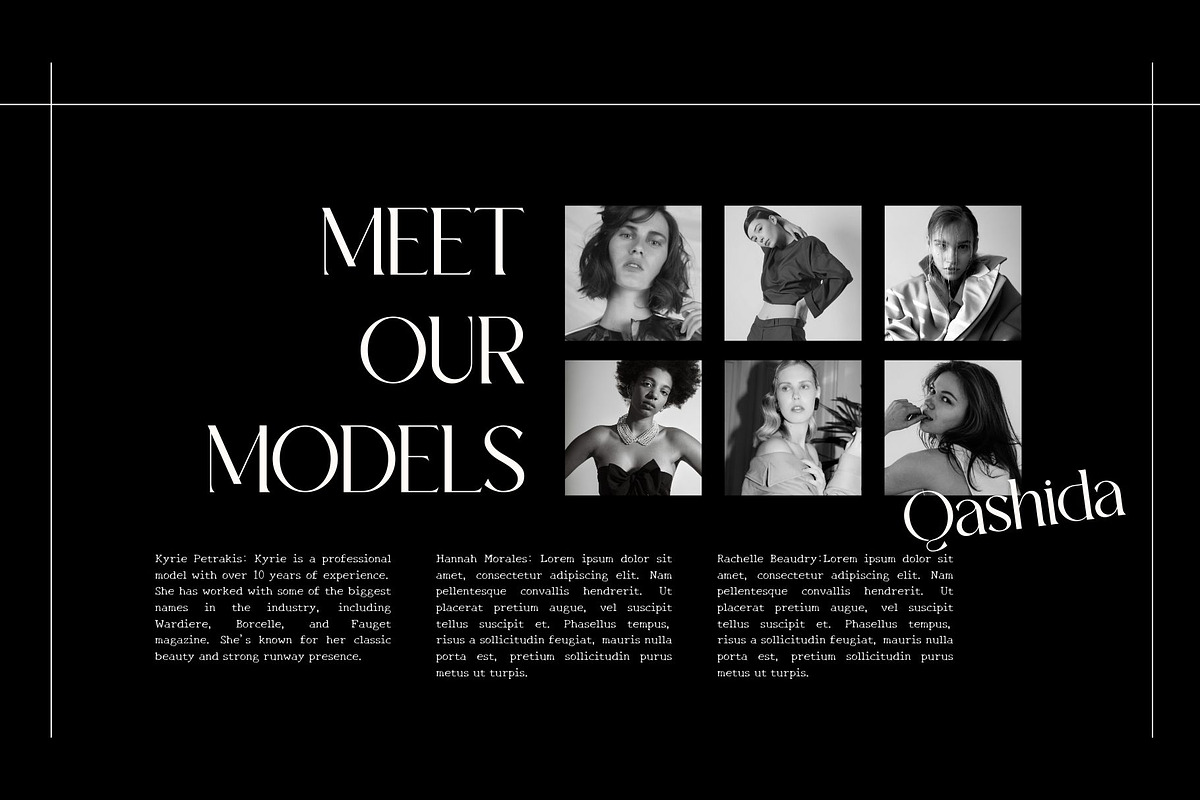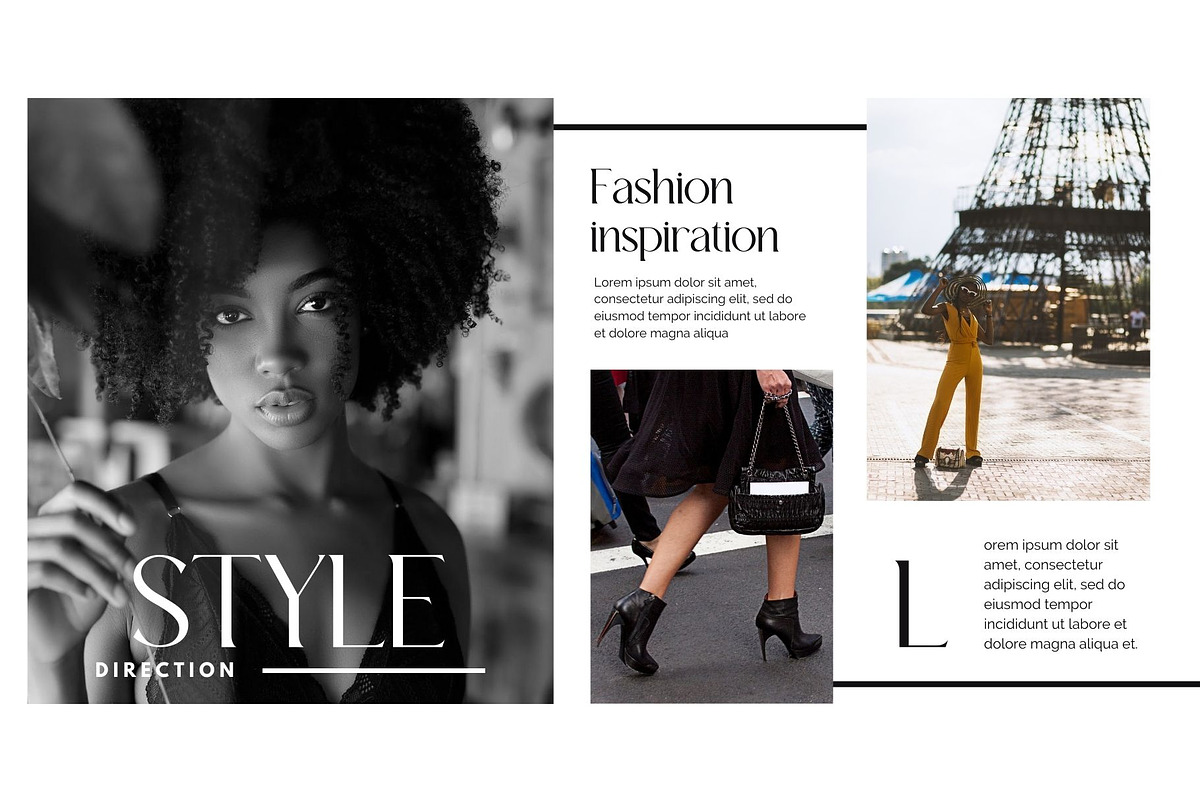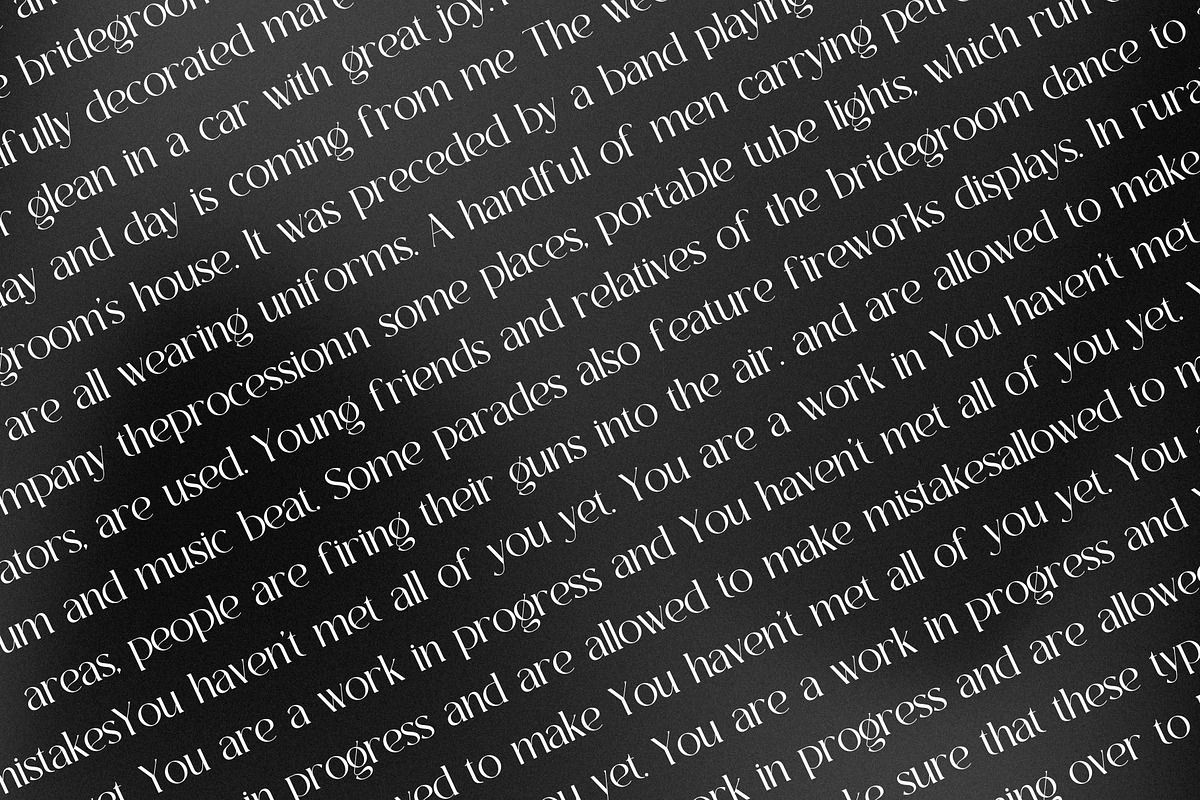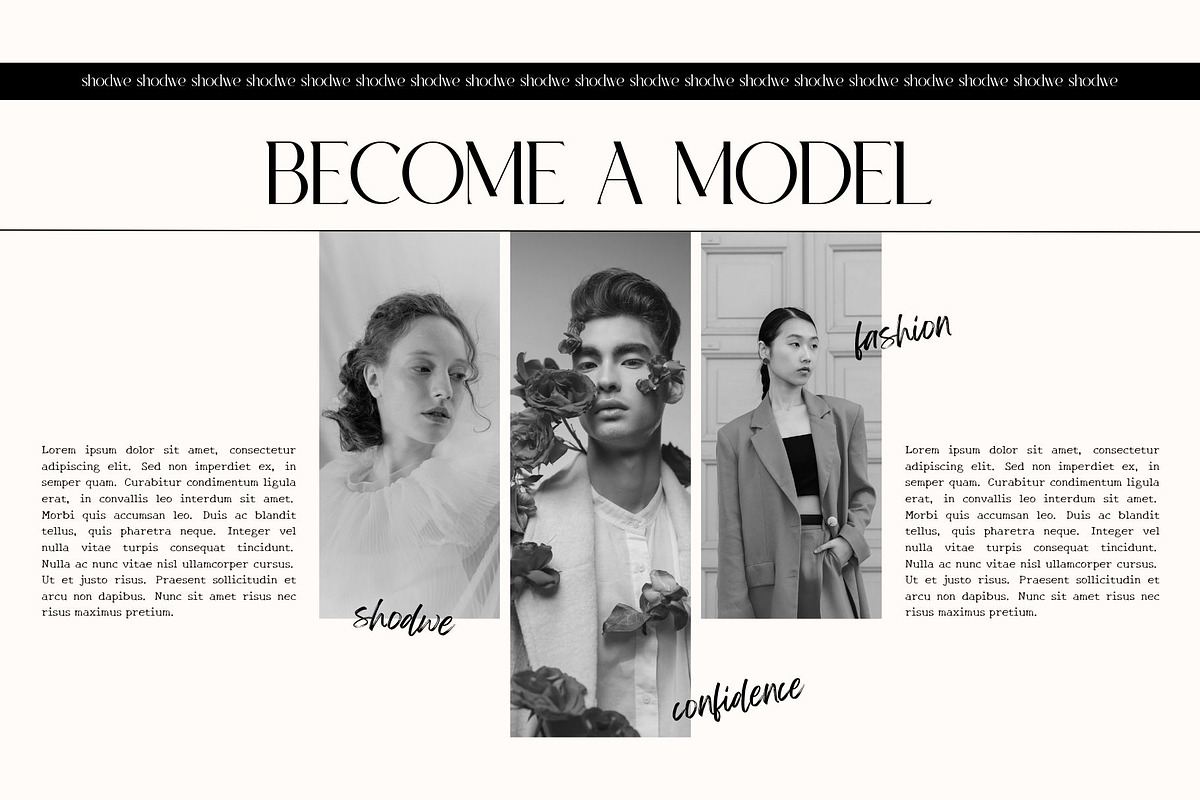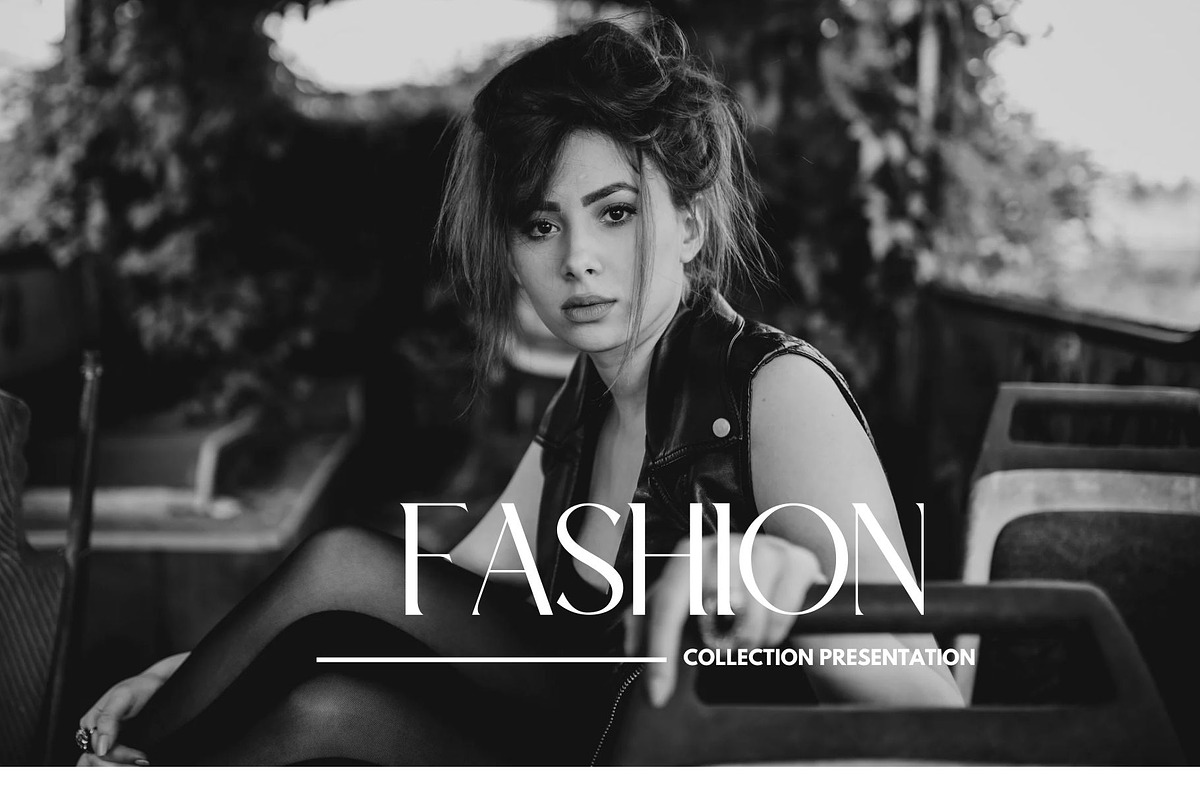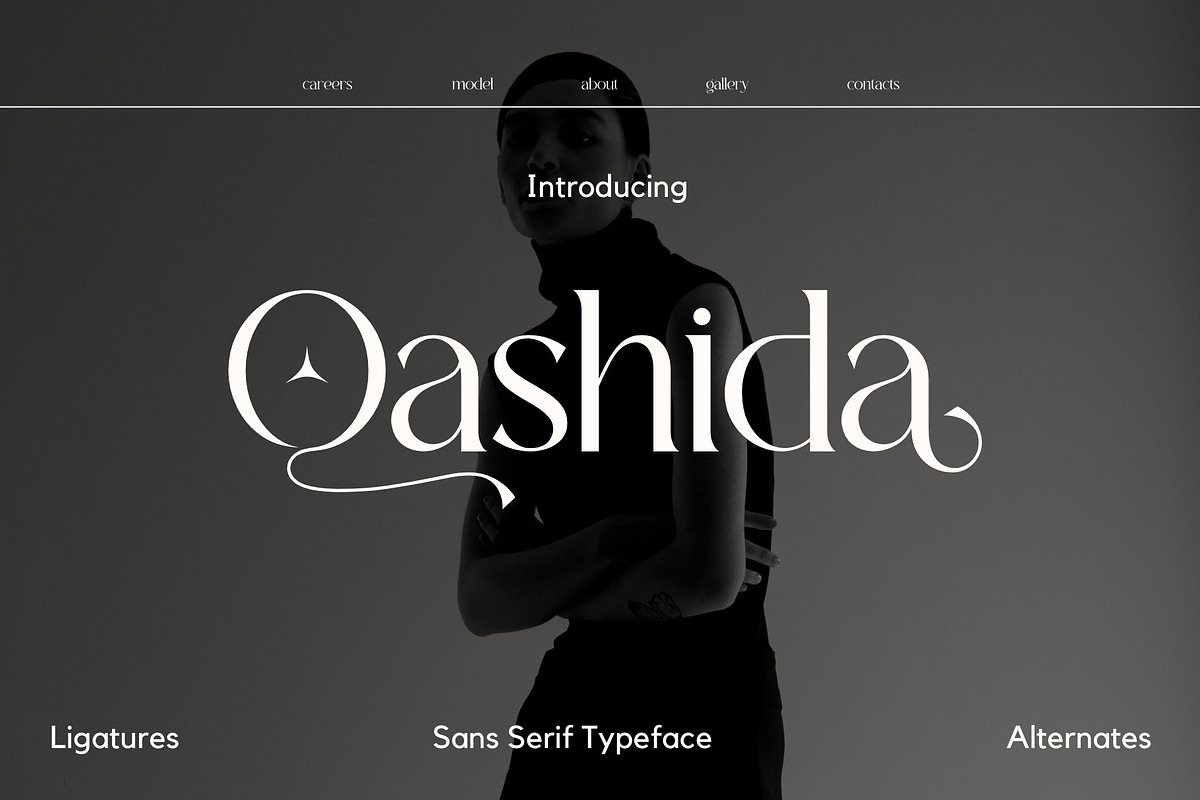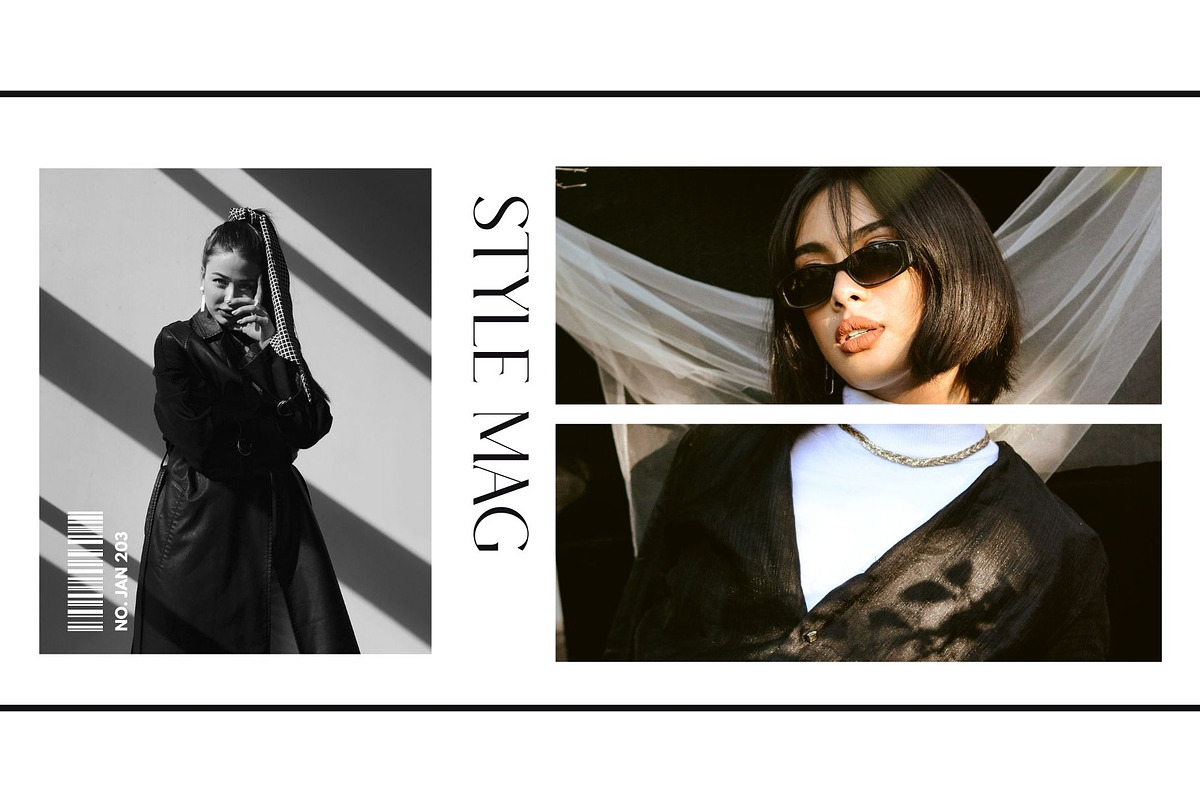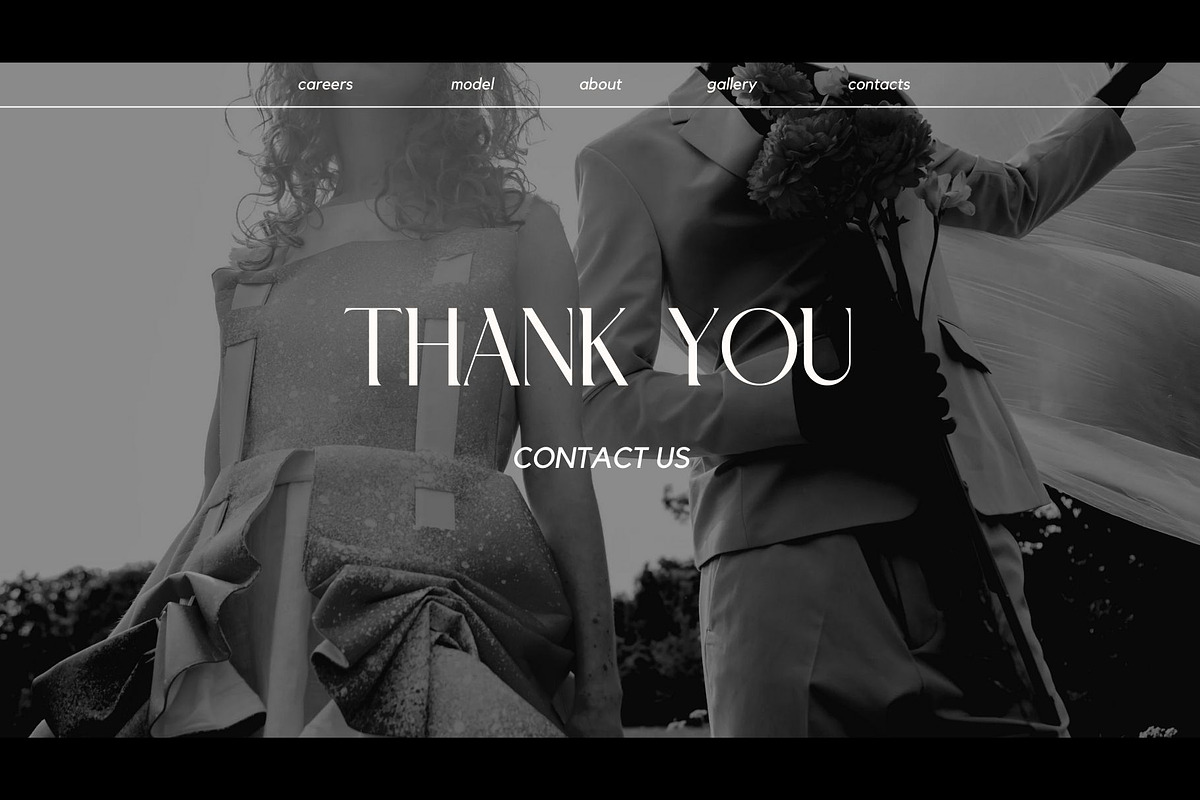
Qashida Sans Serif
Qashida Serif is a balanced, smooth, elegant and stylish serif font. He has a beautiful character. It fits perfectly with invitation card designs, company logos, movie titles, movie names, business cards, book titles, brand names and various other designs. Qashida Serif is a subtle serif font that exudes sophistication and elegance. Its stylish alternations and ligatures make this font the perfect partner for any project.